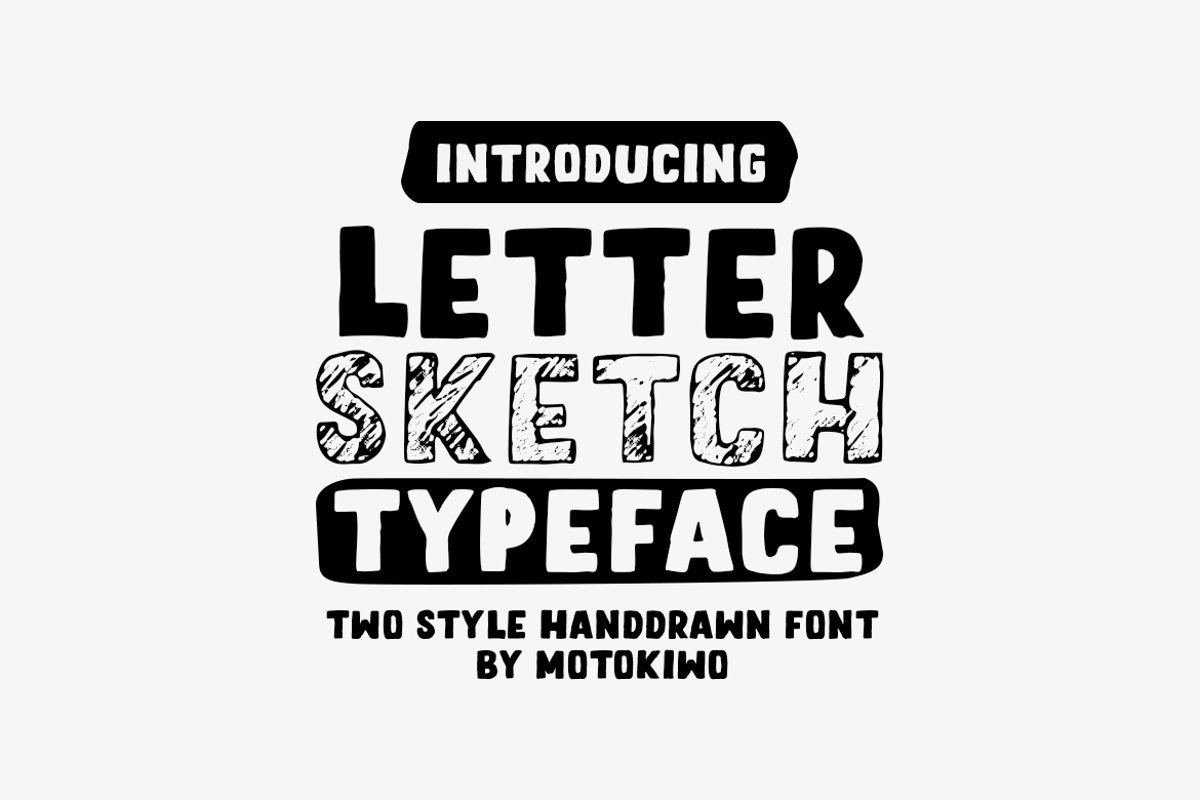
Letter Sketch
Letter Sketch Bold
Letter Sketch
This fun typeface is great for quote, tagline, or headline. Letter Sketch is all caps hand drawn font with two style, rough sketch and filled version. You’ll find natural drawing feels in each characters and will give casual touch to your projects.
1. Letter Sketch Regular : a funky rough pencil sketch font
2. Letter Sketch Bold : the filled version of Letter Sketch Regular